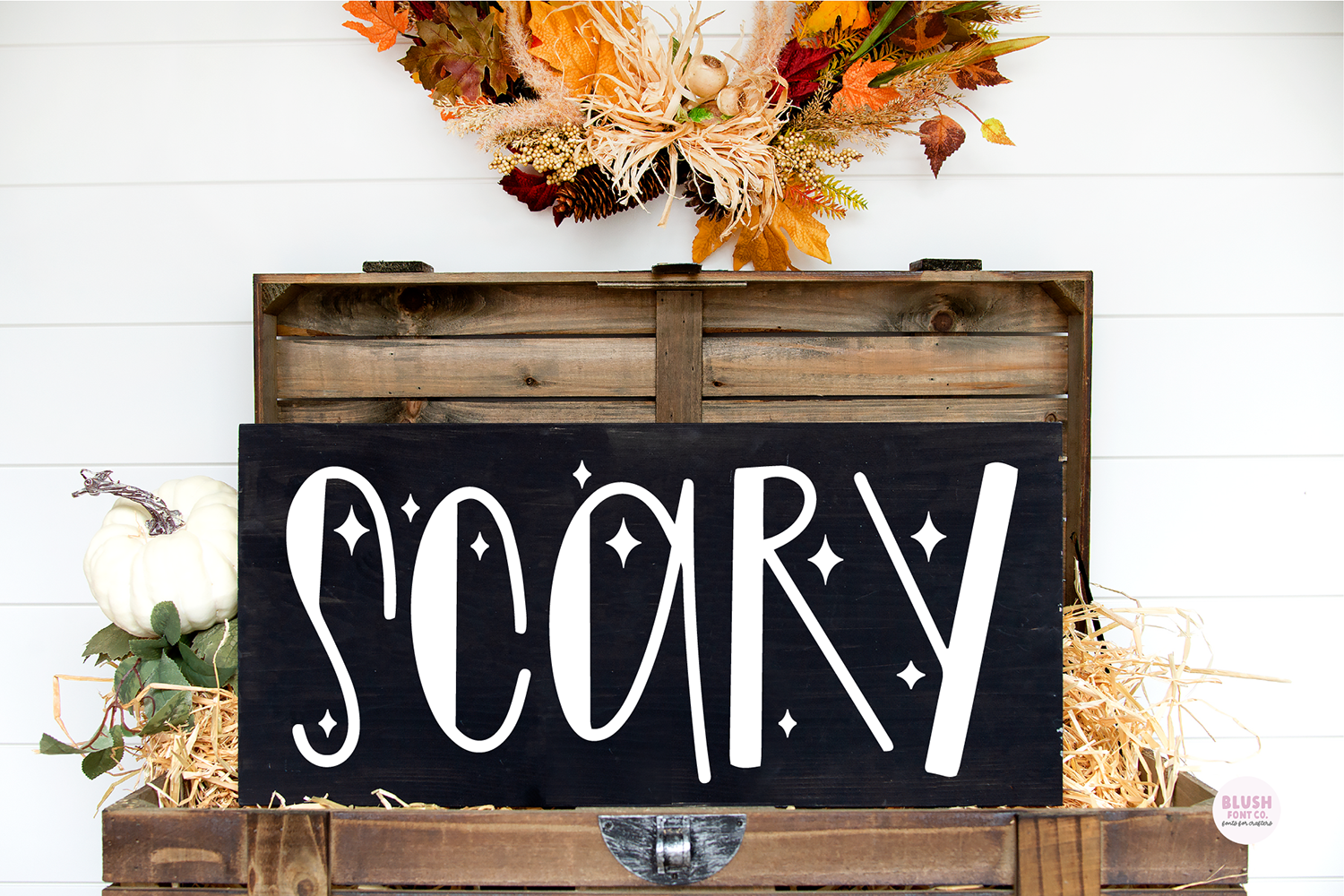
"Magic Cauldron"
A Sparkle Halloween Witch Font
This is an installable font that will work great with your Halloween party invitations, web graphics, and other Halloween decor.